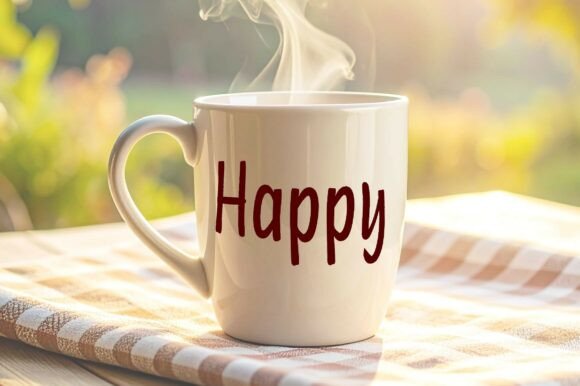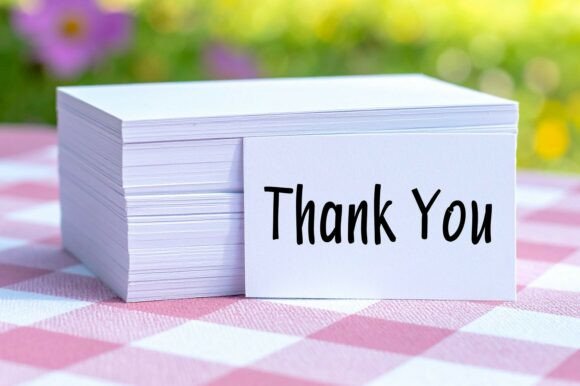
Meet Your New Favorite Font: Unveiling Besar Font
As a designer, there’s nothing quite like the thrill of stumbling upon the perfect font to elevate your project. You know, that moment when you finally find the perfect combination of style and personality to bring your vision to life? That’s exactly what we’re here to share with you today – the enchanting Besar Font.
Besar Font is more than just a font – it’s a warm hug for your audience. Its friendly, approachable nature makes it a perfect fit for projects that require a snuggly touch. From café logos to kids’ merchandise, this robust typeface seamlessly merges standard punctuation glyphs to facilitate a smooth integration with a variety of design formats.
What makes Besar Font truly valuable for designers is its unique ability to leave a lasting imprint. Whether you’re creating merchandise items, designing a logo, or crafting a heartfelt message, this font is an empowering tool that’s sure to delight your audience.
Besar Font Key Features
- Font Family: Besar is a sans-serif font family, designed to be clean, modern, and highly legible.
- Unique Characteristics: Besar features a unique geometric shape and a high x-height, making it highly legible even in small font sizes.
Besar Font Review
Overall, I’d say the Besar font has some great qualities that make it a solid choice for certain projects. ✨
- Unique character**: Besar has a distinct, quirky feel that’s perfect for adding some personality to your designs.
- Clean lines**: The font’s clean lines and simple shapes make it easy to read and understand.
- Playful feel**: Besar has a fun, energetic vibe that’s great for projects that need a bit of whimsy.
However, there are some limitations that might hold you back. ⚠️
- Limited font styles**: Besar is available in only a few font styles, which might limit your creative options.
- Lack of bold/italic variations**: The font could benefit from more bold and italic variations to add some depth and interest.
Overall, I’d say the Besar font is a great choice for projects that need a unique, playful feel. Just be aware of its limitations, and you’ll be able to make the most of it.
Besar font is ideal for creating bold and eye-catching headlines, titles, and logos.
Use it to add a touch of elegance and sophistication to your designs.